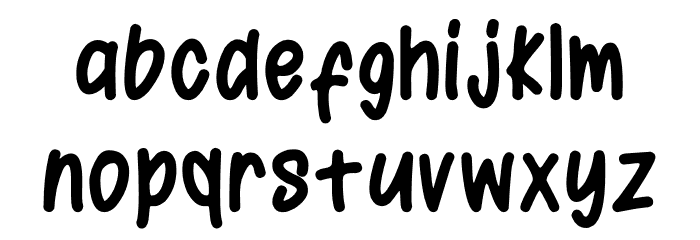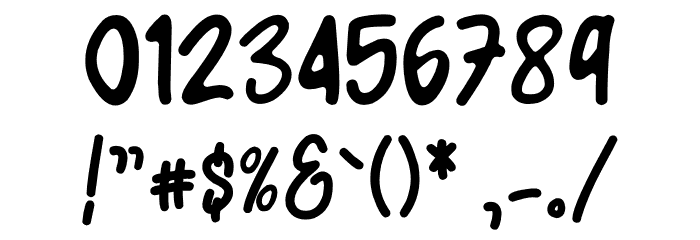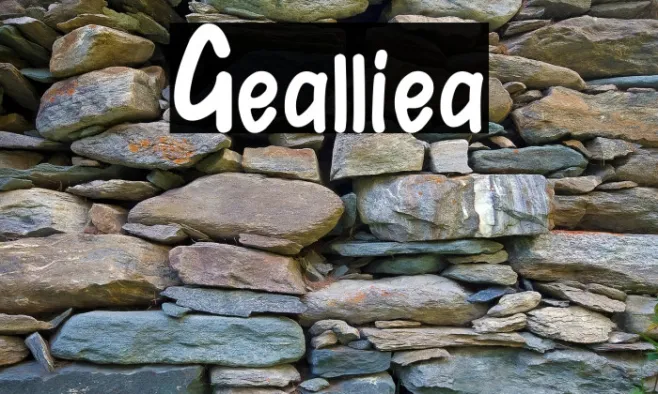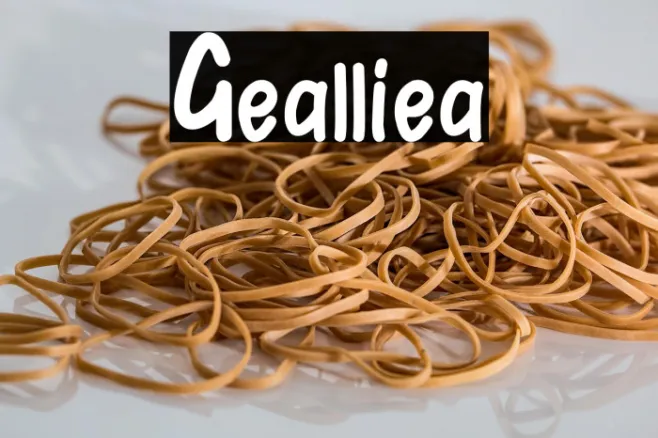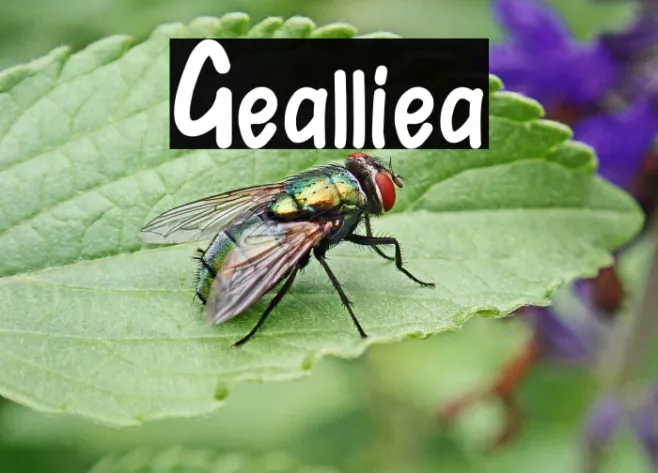
Gealliea Font
This font features a playful and energetic style with a handwritten appearance. The characters are bold and slightly rounded, giving them a friendly and approachable look. The uppercase and lowercase letters maintain a consistent style, with a slight slant that adds to the casual feel. The numbers are clear and easy to read, matching the overall aesthetic of the letters. Special characters are included, maintaining the same playful style. This font is well-suited for projects that require a personal touch or a fun, informal vibe.
A playful, handwritten-style font with bold, rounded characters.
- Proposed Projects: Ideal for greeting cards, children's books, playful branding, and social media graphics.
- Overall Style: Casual, Playful
- Use Case: Headlines, Informal text, Branding